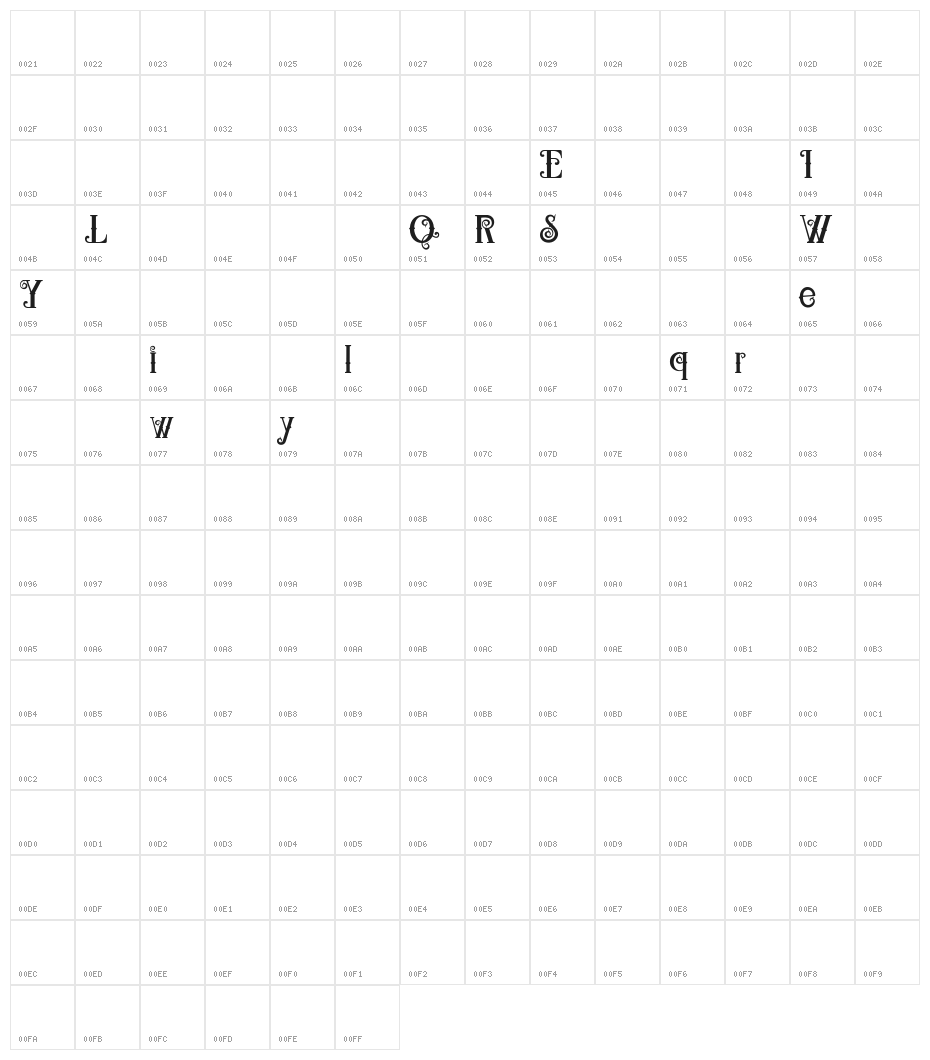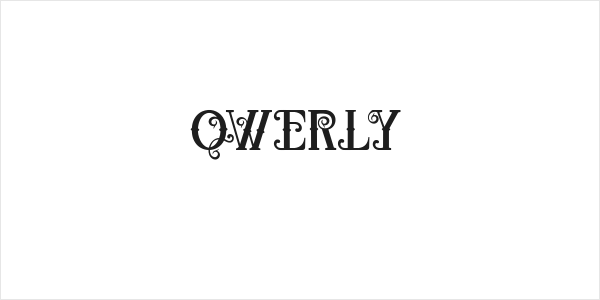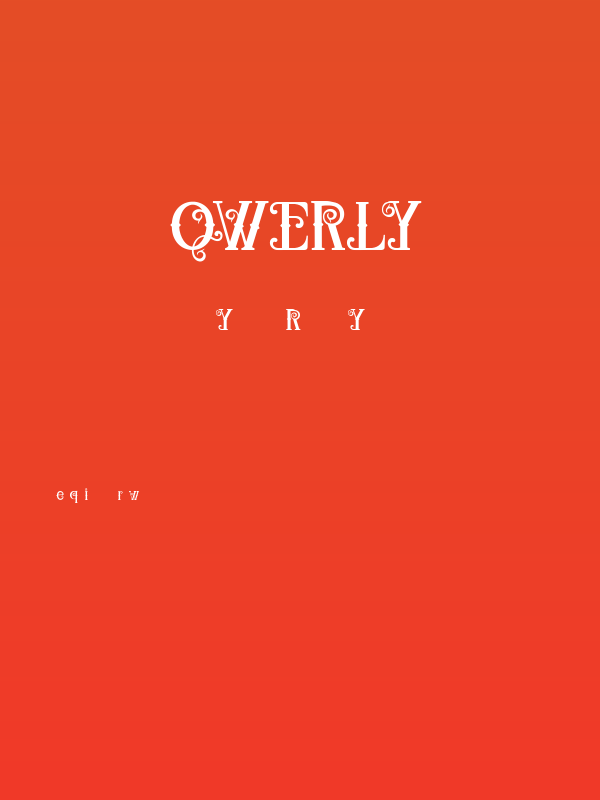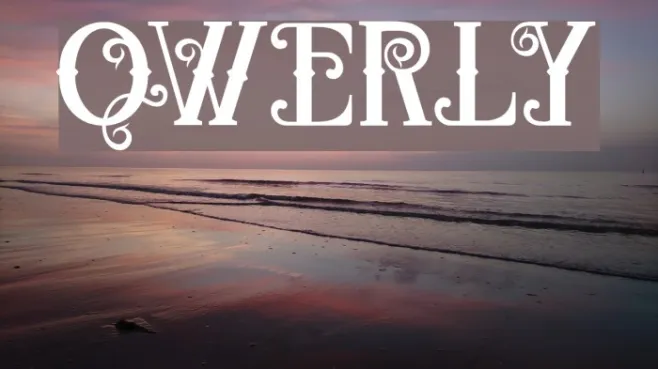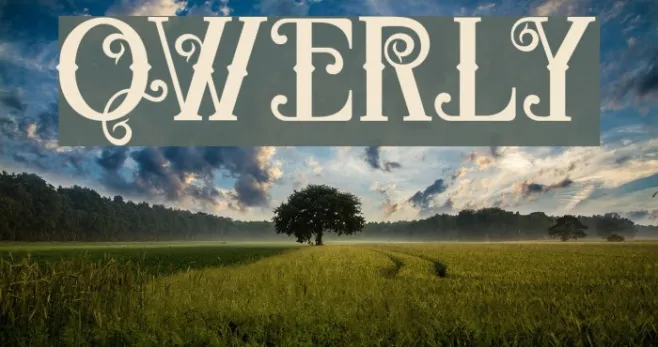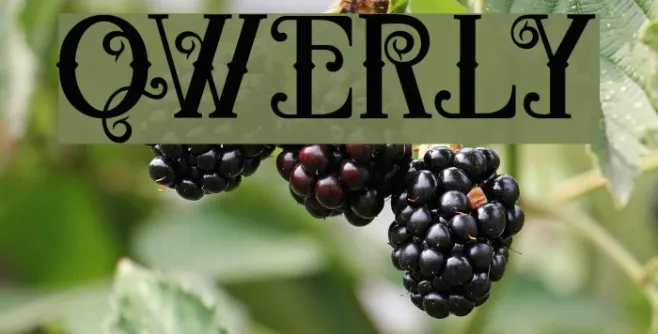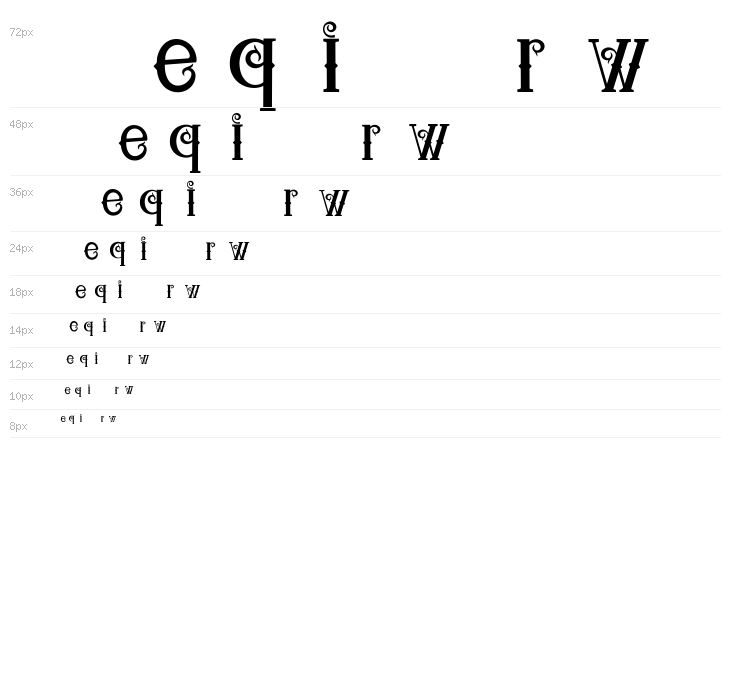
QWERLY Font
QWERLY Description
This font features an ornate and decorative style with elaborate swirls and curls integrated into the characters. The uppercase letters are particularly embellished, with intricate details that give them a whimsical and artistic appearance. The lowercase letters maintain a similar decorative flair, though slightly more subdued, ensuring readability while still offering a unique aesthetic. The font's overall design is reminiscent of vintage or Victorian styles, making it suitable for projects that require a touch of elegance and sophistication. The characters are well-spaced, allowing for clear legibility despite the intricate designs.
| Use Case | Logos, Invitations, Decorative headings |
| Proposed Projects | Ideal for wedding invitations, vintage-themed posters, or branding that requires an elegant and artistic touch. |